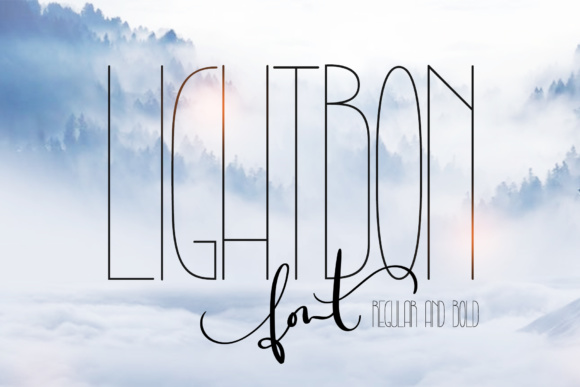
Journey into the Realm of Timeless Charm with Lightbon Sans Serif Font
In a world saturated with digital noise, your designs deserve a voice that whispers elegance, a touch that speaks volumes without uttering a single word. Enter Lightbon, the sans serif font that invites you to transcend the ordinary and embrace the extraordinary.
Crafted with meticulous precision, Lightbon is a visual masterpiece that captures the essence of classic typography. Its seamless curves and sharp edges dance in perfect harmony, creating a font that is both timeless and captivating. Whether you're designing a sophisticated logo, an enchanting invitation, or a captivating social media post, Lightbon will add a touch of sophistication and charm that leaves a lasting impression.
Step into the world of Lightbon and discover a font that truly understands the language of beauty. Its versatility knows no bounds, effortlessly adapting to a myriad of design styles. From the delicate strokes of a wedding invitation to the bold statements of a poster, Lightbon transforms your words into works of art.
Unleash the Power of Lightbon:
1. Elegance Personified: Lightbon's graceful curves and sharp edges evoke a sense of timeless elegance, elevating your designs to new heights of sophistication.
2. Two Weights, Endless Possibilities: With two carefully crafted weights, Lightbon Regular and Lightbon Bold, you have the freedom to explore a wide spectrum of design expressions. From subtle whispers to bold declarations, Lightbon adapts seamlessly to your creative vision.
3. The Perfect Display Font: Let your designs shine with Lightbon's exceptional display capabilities. Its striking presence commands attention, making it the ideal choice for logos, headings, and other prominent elements that demand impact.
4. A Master of Harmony: The Lightbon font seamlessly blends with other design elements, effortlessly complementing images, graphics, and illustrations. Its harmonious nature creates a cohesive and visually appealing composition.
5. Designed for Perfection: Created by Happy Letters, Lightbon is a testament to meticulous craftsmanship. Each character has been meticulously designed to ensure optimal readability, ensuring that your message is conveyed with clarity and impact.